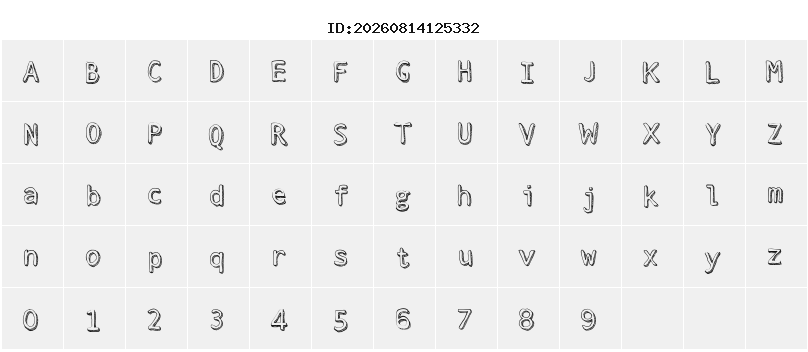
• Font Name: Stroke Dimension
• Full Font Name: Stroke Dimension
• Designer: Måns Grebäck
• Manufacturer: Måns Grebäck
About Stroke Dimension.ttf
Stroke Dimension.ttf is a modern, elegant sans-serif font designed for ultimate readability and visual harmony. Perfect for branding, headlines, web design, and print materials.